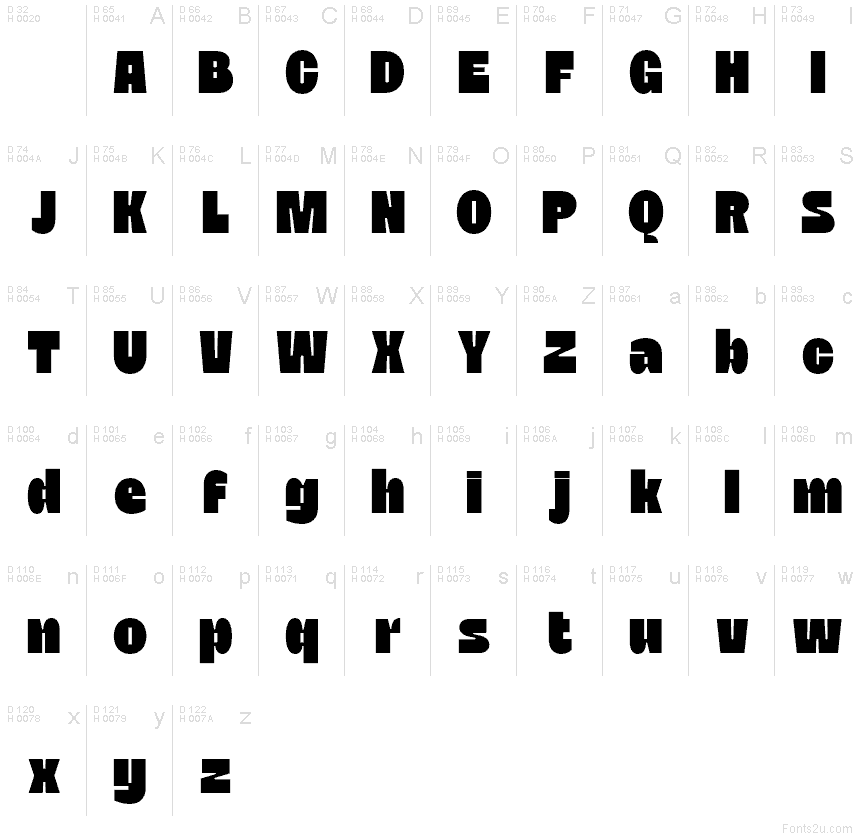
CS Thiago Regular Demo
CS Thiago font by Craft Supply Co. is a bold, retro display typeface with a chunky appearance. Its geometric shapes and minimalistic design elements lend it a modern aesthetic with a strong presence and contemporary appeal. The sans-serif style used creates an eye-catching design that can easily interest readers of the written content.